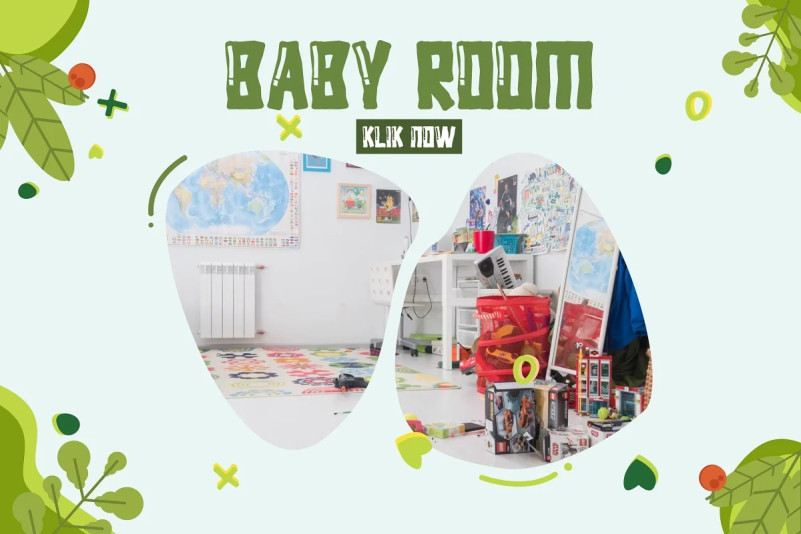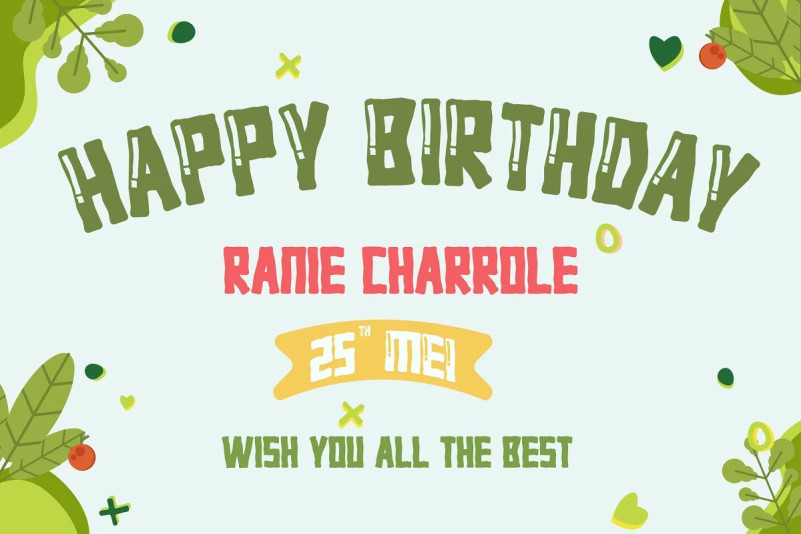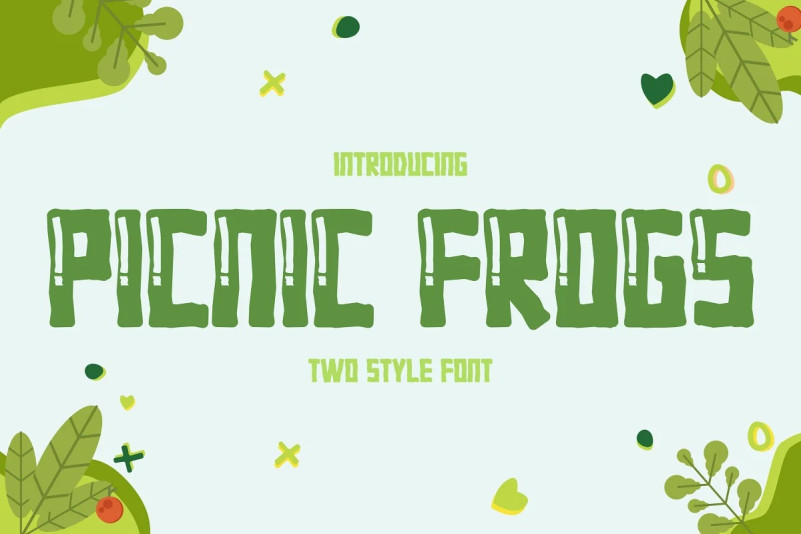
Picnic Frogs Font
PICNIC FROGS Font is is a very unique and cute font with cute handwriting with a distinctive characteristic that is different from the others, this font is perfect for you to use in any case such as Funny moment, posters, promos, videos, pictures etc.